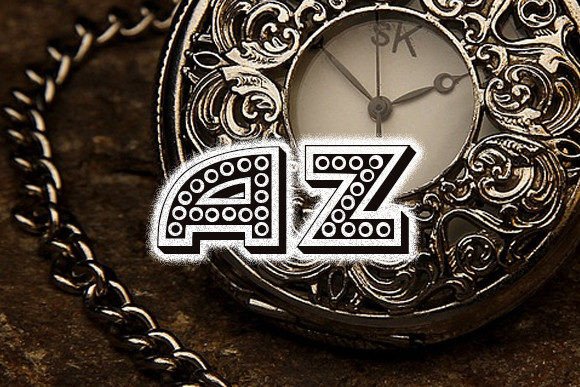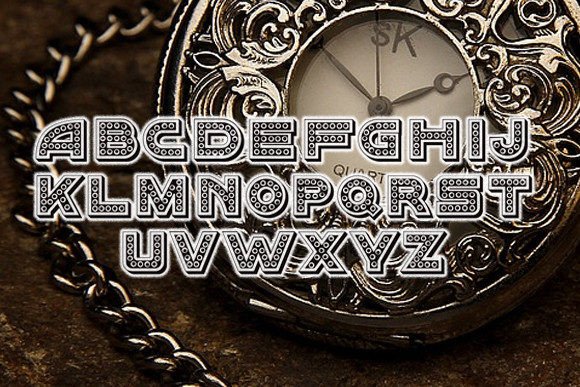
Introducing Dial Font: Elevate Your Designs with a Superb Decorative Typeface
Are you a designer or crafter looking for a unique and stylish font to take your projects to the next level? Look no further than Dial Font, a superb decorative typeface that is sure to fit any of your designs. With its versatility and aesthetic appeal, Dial Font is the perfect addition to your typography collection.
What is Dial Font?
Dial Font is a decorative typeface designed to add a touch of elegance and sophistication to your designs. Its distinctive style makes it stand out from more traditional fonts, allowing you to create eye-catching posters, flyers, t-shirts, and more. Whether you’re working on a personal project or a client’s commission, Dial Font is sure to make a lasting impression.
Key Features of Dial Font
- Unique Style: Dial Font boasts a one-of-a-kind design that will set your work apart from the crowd.
- Versatility: Use Dial Font on a variety of projects, from posters and flyers to t-shirts and other merchandise.
- High-Quality: Dial Font is a high-quality typeface, ensuring crisp and clear text even at small sizes.
Uses for Dial Font
Dial Font’s versatility makes it suitable for a wide range of design projects. Here are just a few ideas to get you started:
- Posters: Create eye-catching posters for events, promotions, or simply to showcase your artwork.
- Flyers: Use Dial Font to design flyers that grab attention and effectively communicate your message.
- T-Shirts: Add a stylish touch to your t-shirt designs with Dial Font, perfect for custom apparel.
- Branding: Incorporate Dial Font into your brand identity for a unique and memorable look.
Why Choose Dial Font?
With so many fonts available, why choose Dial Font? Here are a few compelling reasons:
- Stand Out: Dial Font’s distinctive style ensures your designs won’t get lost in the crowd.
- Professional Results: Achieve high-quality, professional-looking results with minimal effort.
- Time-Saving: With its ease of use and versatility, Dial Font saves you time and effort in finding the perfect font for your projects.
Tips for Using Dial Font
To get the most out of Dial Font, consider the following tips:
- Experiment with Sizes: Play around with different font sizes to find the perfect balance for your design.
- Pair with Other Fonts: Combine Dial Font with complementary fonts to create visual interest and hierarchy.
- Consider Color: Choose colors that complement Dial Font’s style and enhance your overall design.